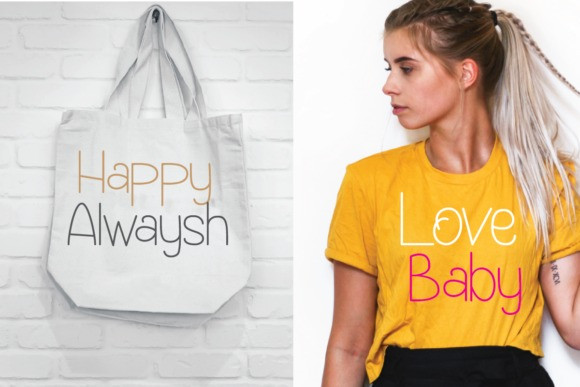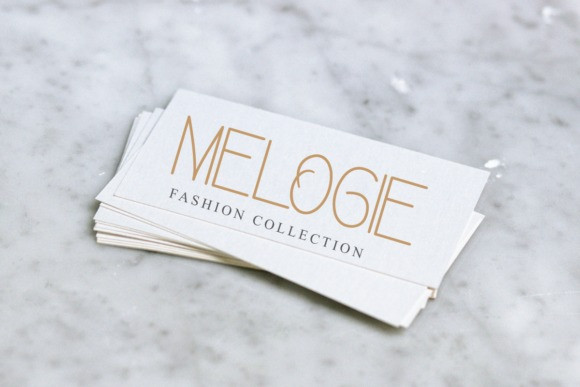
Rosaline Display Font
Rosaline is a cute and sweet handwritten font. It will add a lovely touch to each of your design ideas. Fall in love with its incredibly versatile style and use it to create spectacular designs!